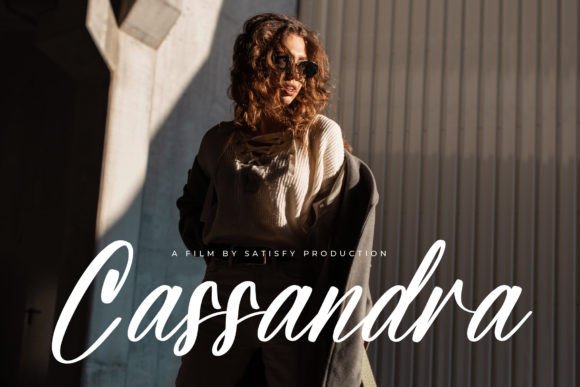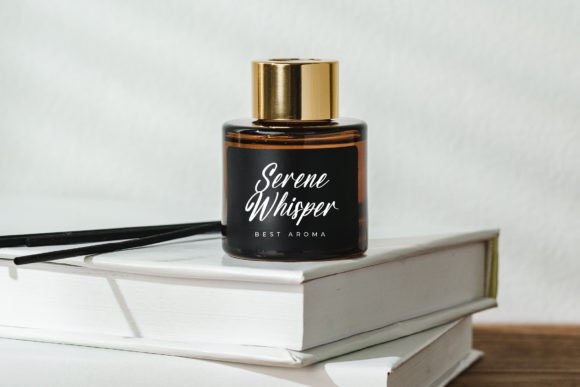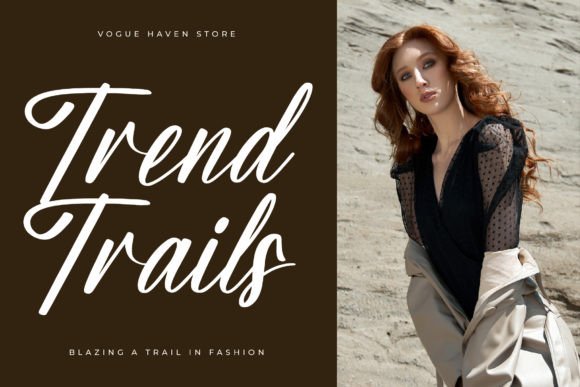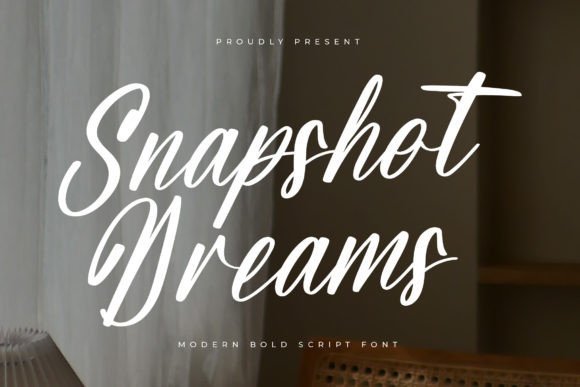
Introduction to Snapshot Dreams Font
Meet Snapshot Dreams: a dazzling handwritten script font that exudes urban sophistication and charm.
Its flowing, confident strokes and stylish flair make it perfect for invitations, branding, and editorial designs Snapshot Dreams brings a personal touch to any project, combining elegance with a contemporary, artisanal twist.
Key Features of Snapshot Dreams Font